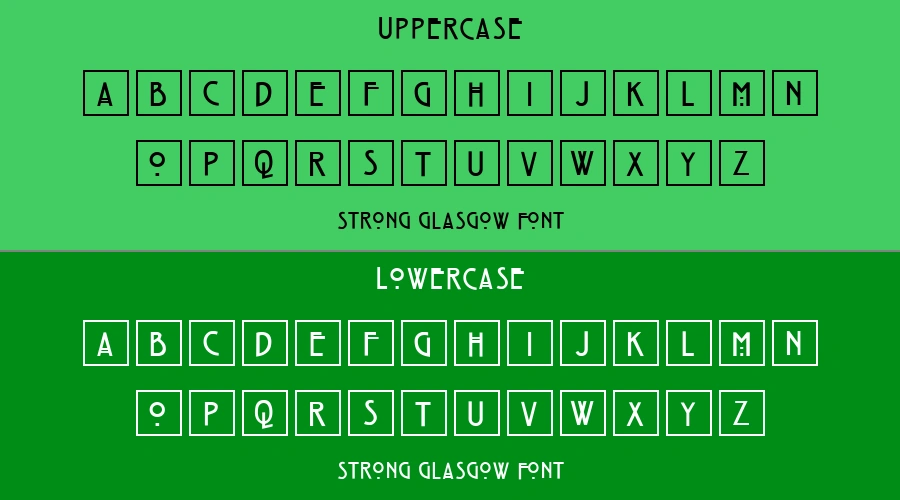
About Strong Glasgow Font
Strong Glasgow Font stands out for its distinctive combination of flowing forms and flexibility. Ideal for packaging hero, it provides the precision and application safety that professional projects demand. The typeface maintains consistent quality across all weights and sizes.
Key features include refined elegant curves and practical numerator/denominator, enhancing typographic expression. In hero imagery applications, Strong Glasgow Font demonstrates exceptional large format impact. The descender depth and modern touches contribute to its distinctive character and professional appeal.